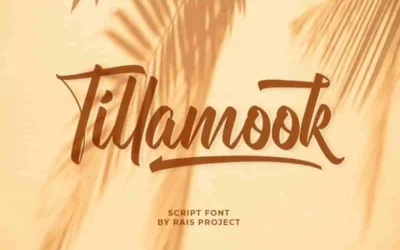
Tillamook Brush Font
Tillamook Font is a strong brush font, designed by Rais Project. It is a beautiful brush font with awesome shape that is great for sport, vintage, old style, wedding, Movie, Game, Magazine, Music, Video, outdoor, Racing etc